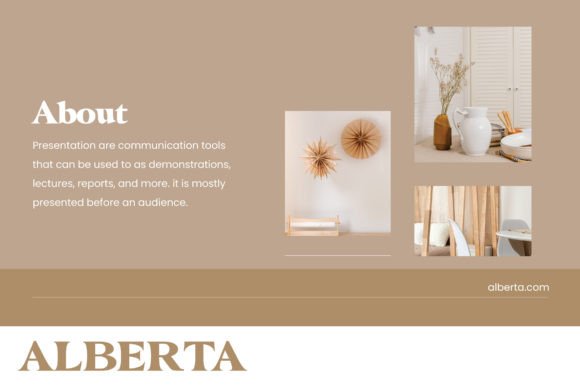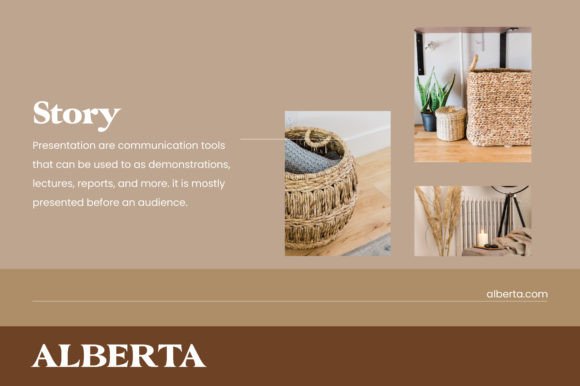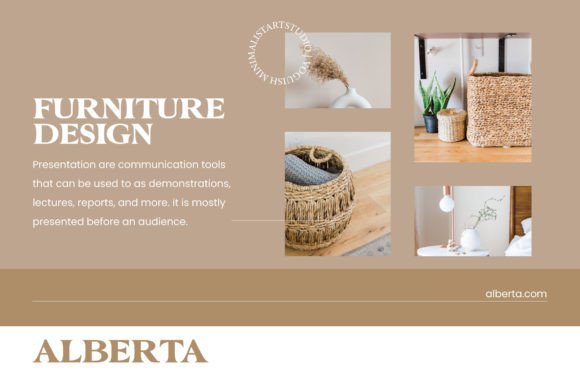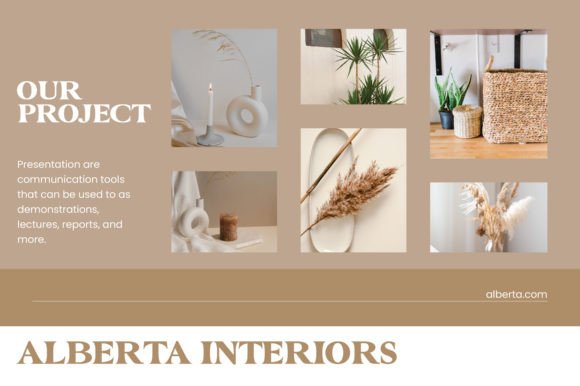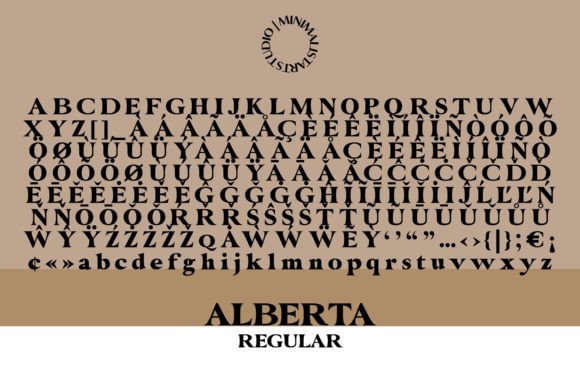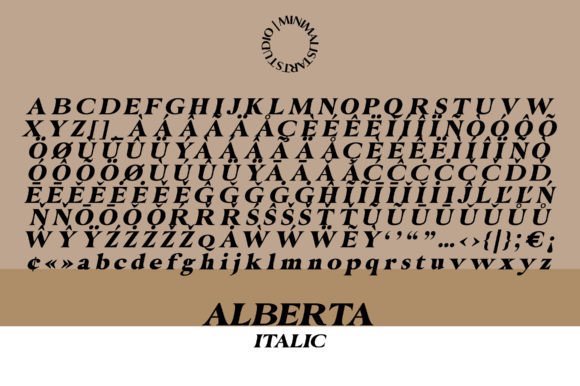
The Elegant Alberta Font: A Designer’s New Best Friend
I still remember the last time I was working on a high-end fashion brand project, and my client asked for a font that exuded luxury and sophistication. I scoured the internet, tried out a dozen fonts, but none seemed to fit the bill. That was until I stumbled upon the Alberta Font. ✨ It was love at first sight! The refined, chic, and stylish serif typeface instantly elevated my design, and my client was thrilled. In this article, I’ll share my experience with the Alberta Font, its features, and how to make the most of it in your designs.
- ✅ Elegant and sophisticated design that instantly adds a touch of luxury to any project
- ✨ Versatile and perfect for a wide range of design projects, from packaging to posters
- ⚡️ Highly legible, even at small font sizes
- 🎨 Beautifully crafted to add a touch of refinement to any design
While the Alberta Font is an excellent choice for many design projects, there are a few things to keep in mind: 🤔
- ⚠️ May not be the best choice for body text or long-form content, as it’s a serif font and may be less readable in large blocks
- ⚠️ Some users may find the font a bit too ornate or decorative for certain projects
The Story Behind Alberta Font
The Alberta Font was designed by a team of typographers who wanted to create a font that embodied the elegance and sophistication of luxury brands. Inspired by classic serif fonts, they crafted a unique and refined typeface that would add a touch of refinement to any design. The font’s name, Alberta, was chosen to evoke the natural beauty and sophistication of the Canadian province.
Q: What is the Alberta Font best used for?
A: The Alberta Font is perfect for elegant design projects such as packaging design, cosmetics design, perfume, fashion, jewels, posters, and many more.
Q: Is the Alberta Font easy to read?
A: Yes, the Alberta Font is highly legible, even at small font sizes, making it perfect for a wide range of design projects.